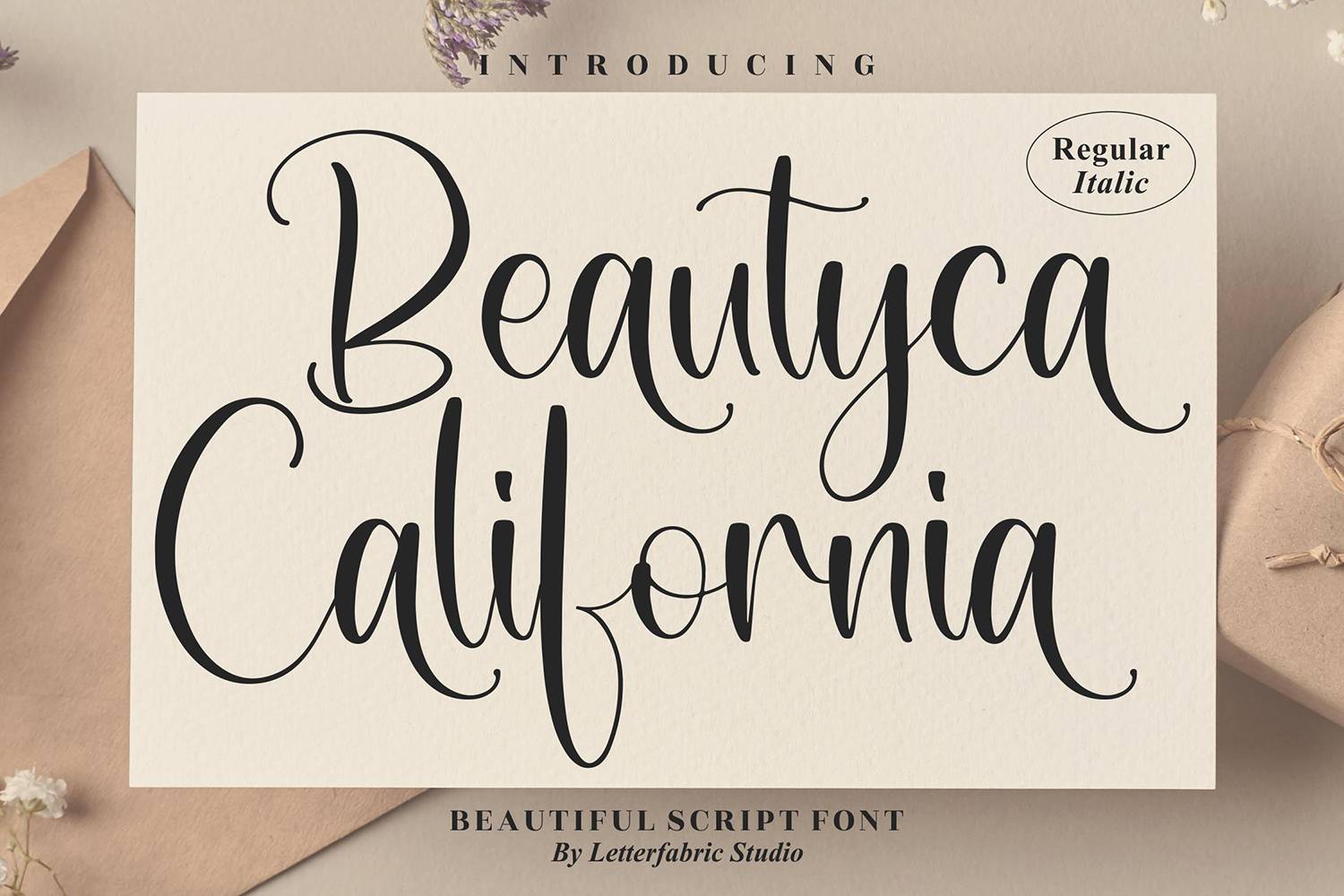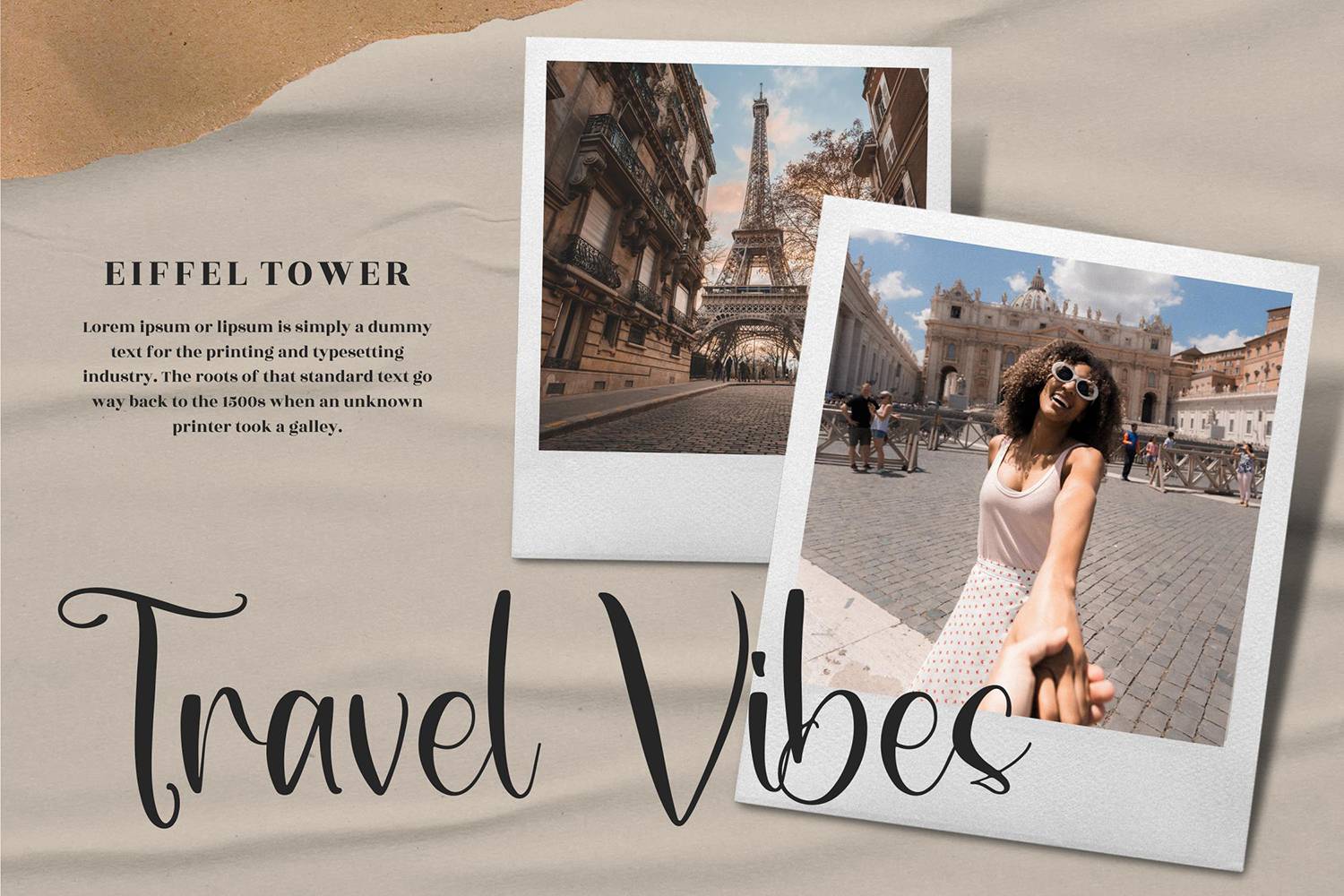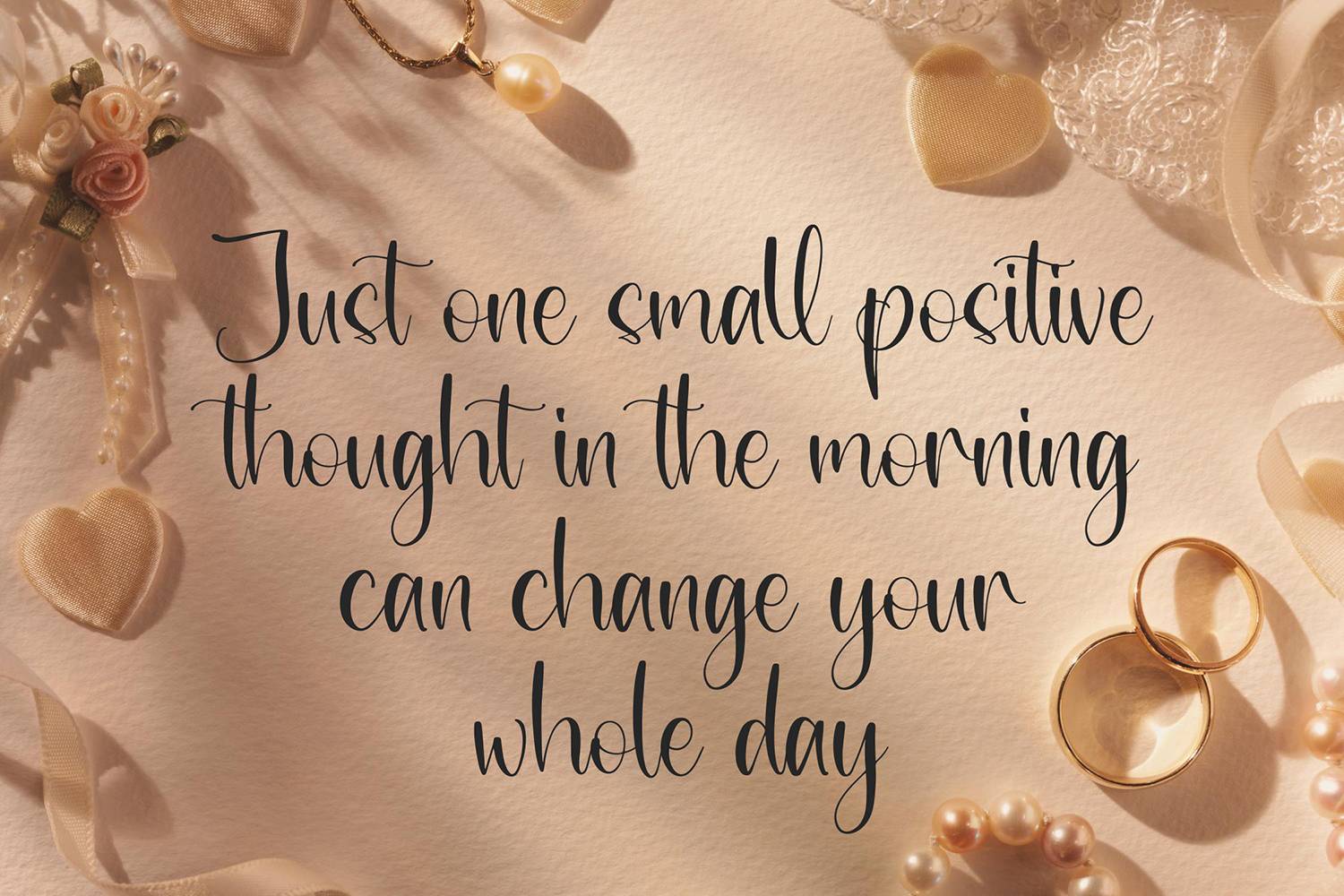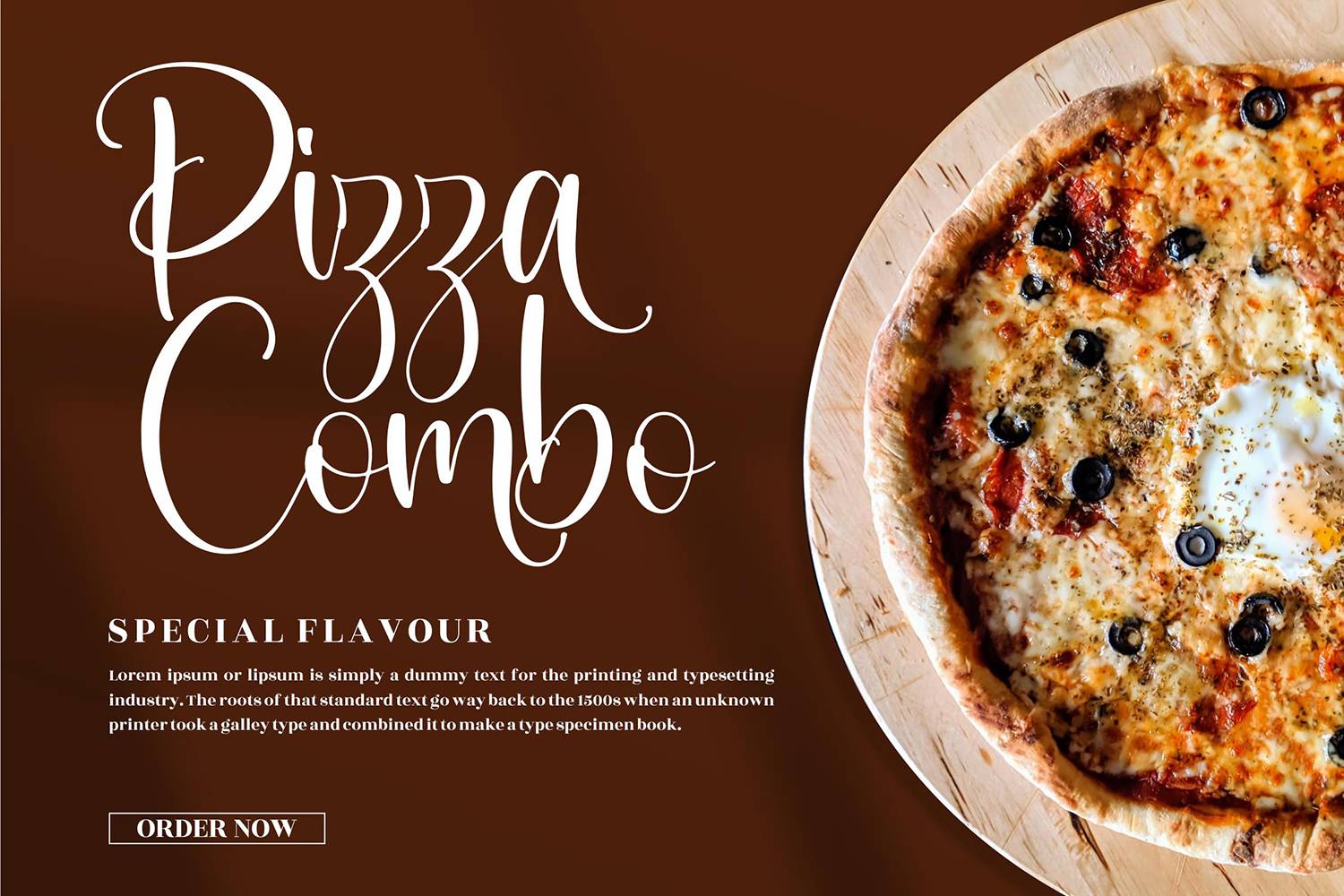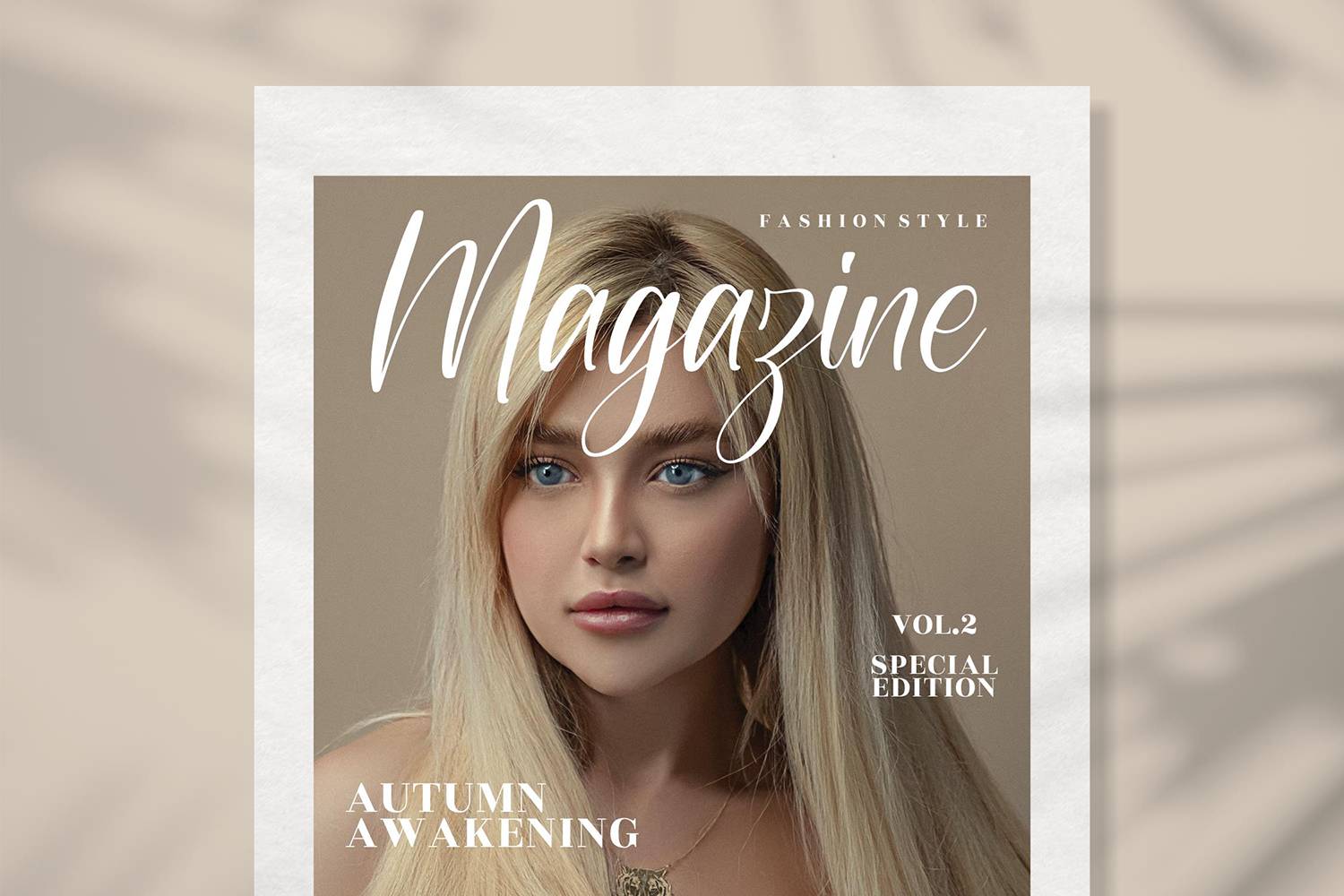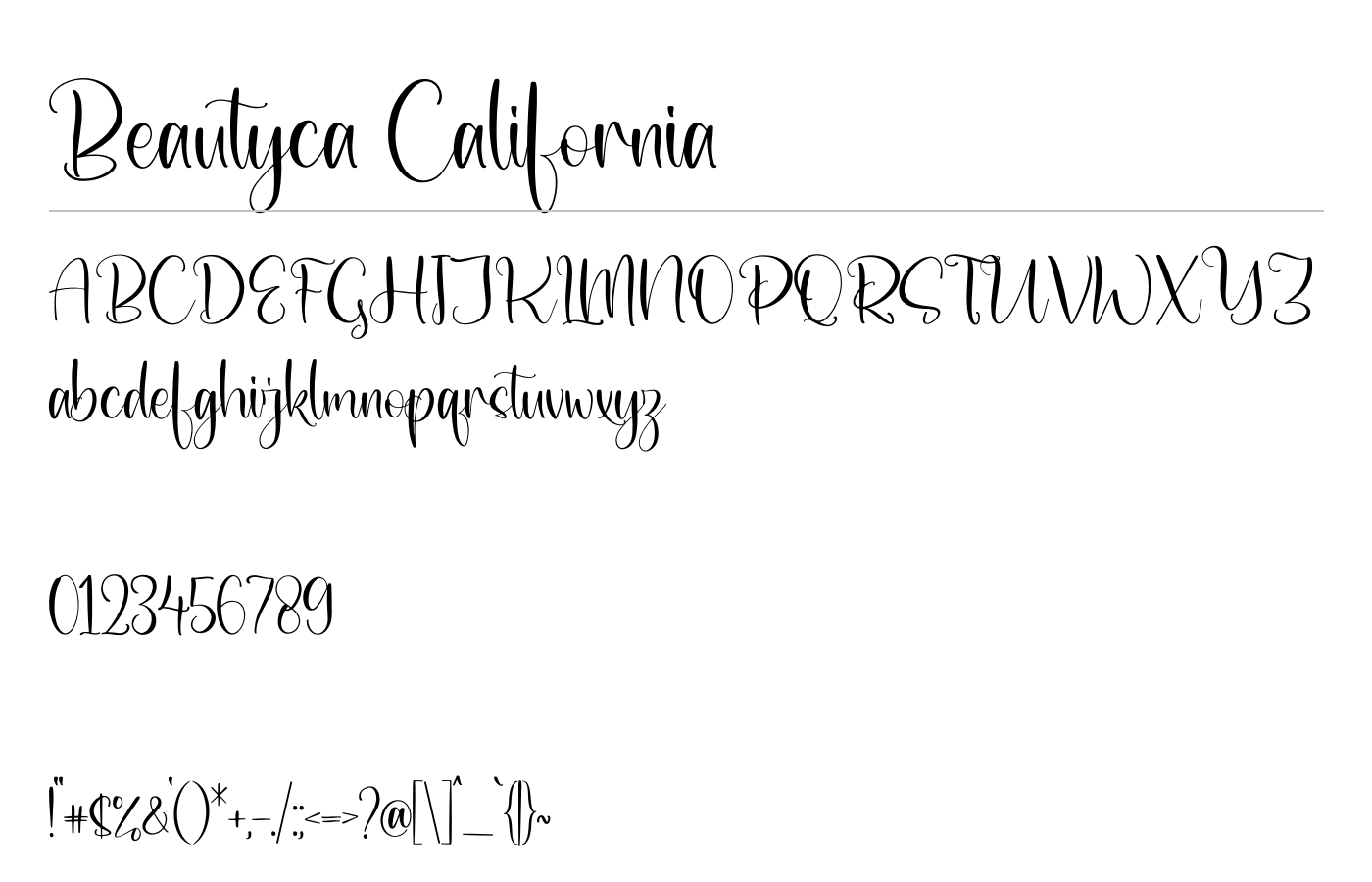
Beautyca California is a delicate script font with a handwritten, playful charm and slender, flowing letterforms. Its tall, narrow characters with elegant curls and subtle variations evoke a friendly yet stylish and modern feel, making it ideal for feminine branding, invitations, and creative projects that seek a personal, approachable touch. This font works best in headlines, logos, and decorative text where its unique personality can shine.
Beautyca California Font